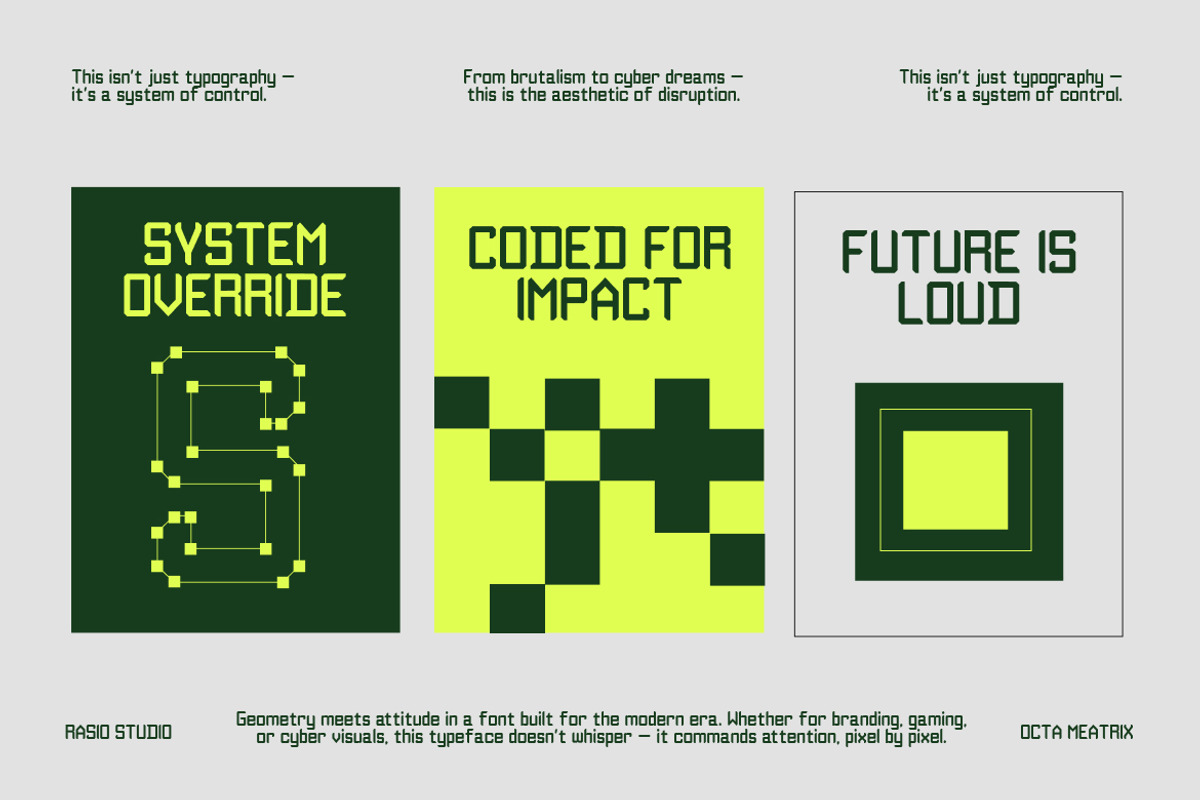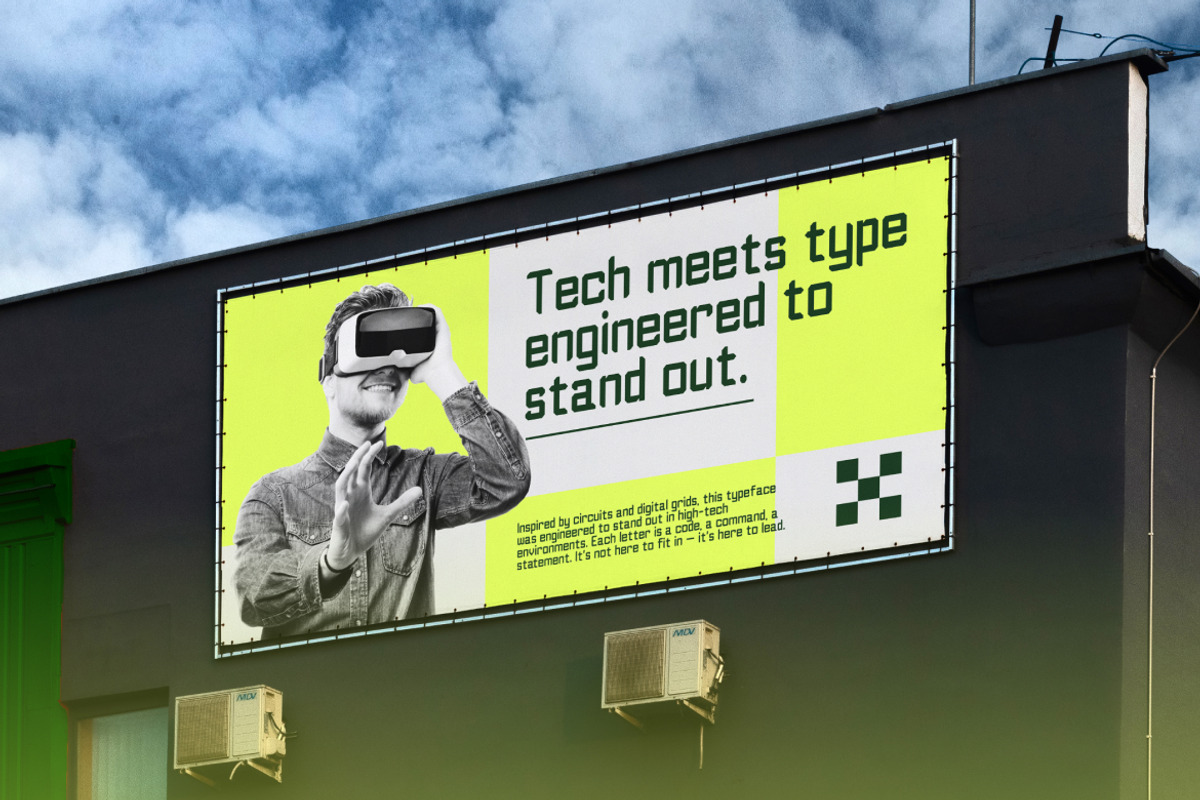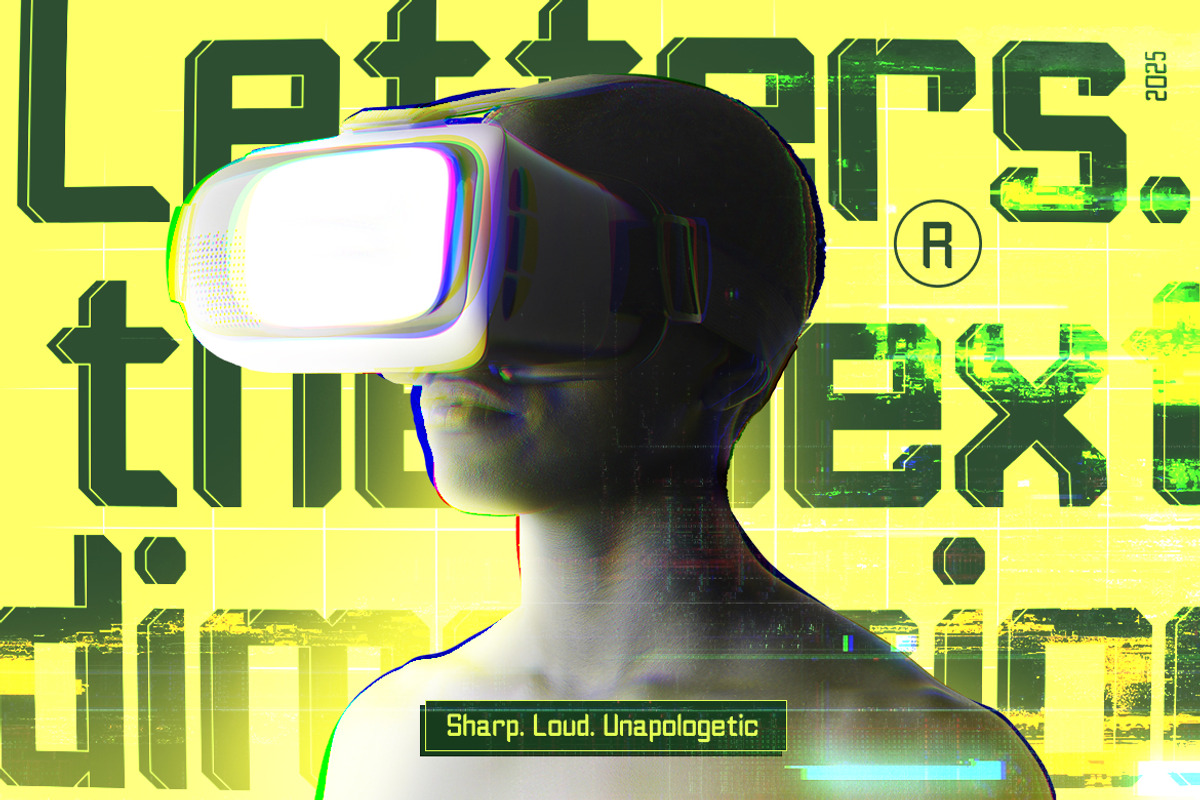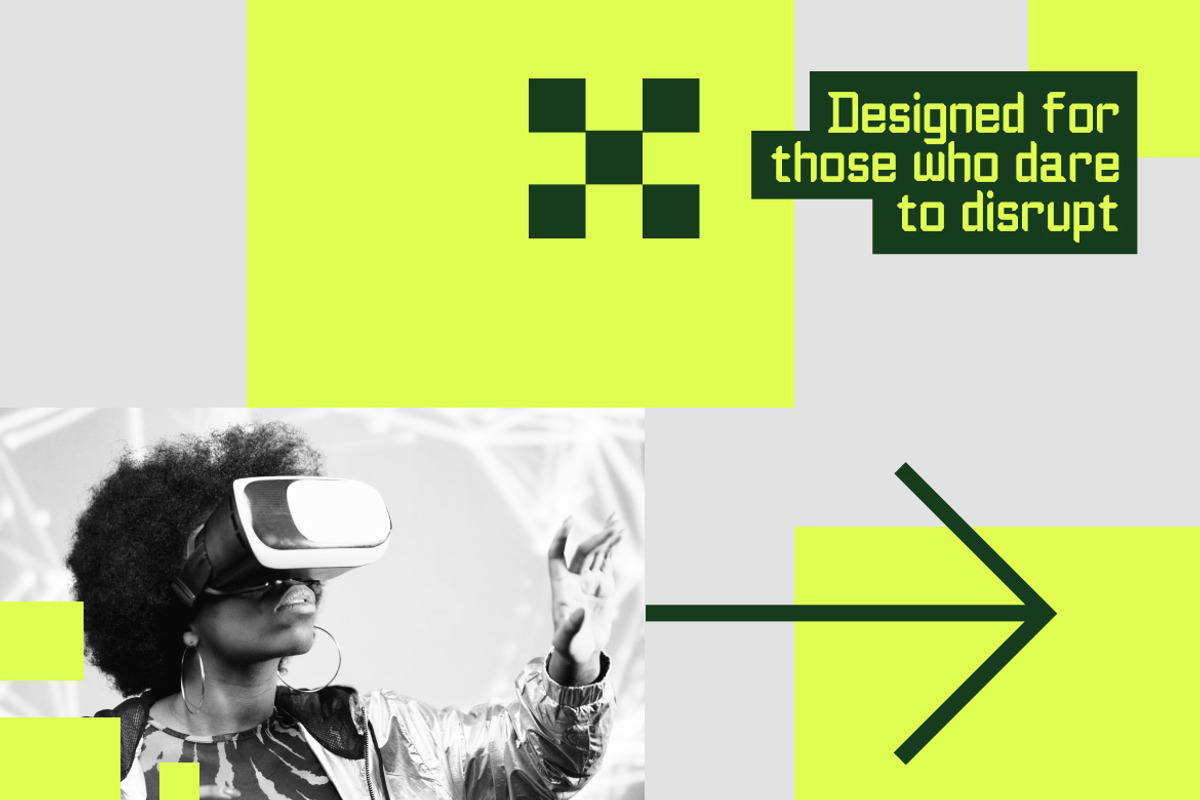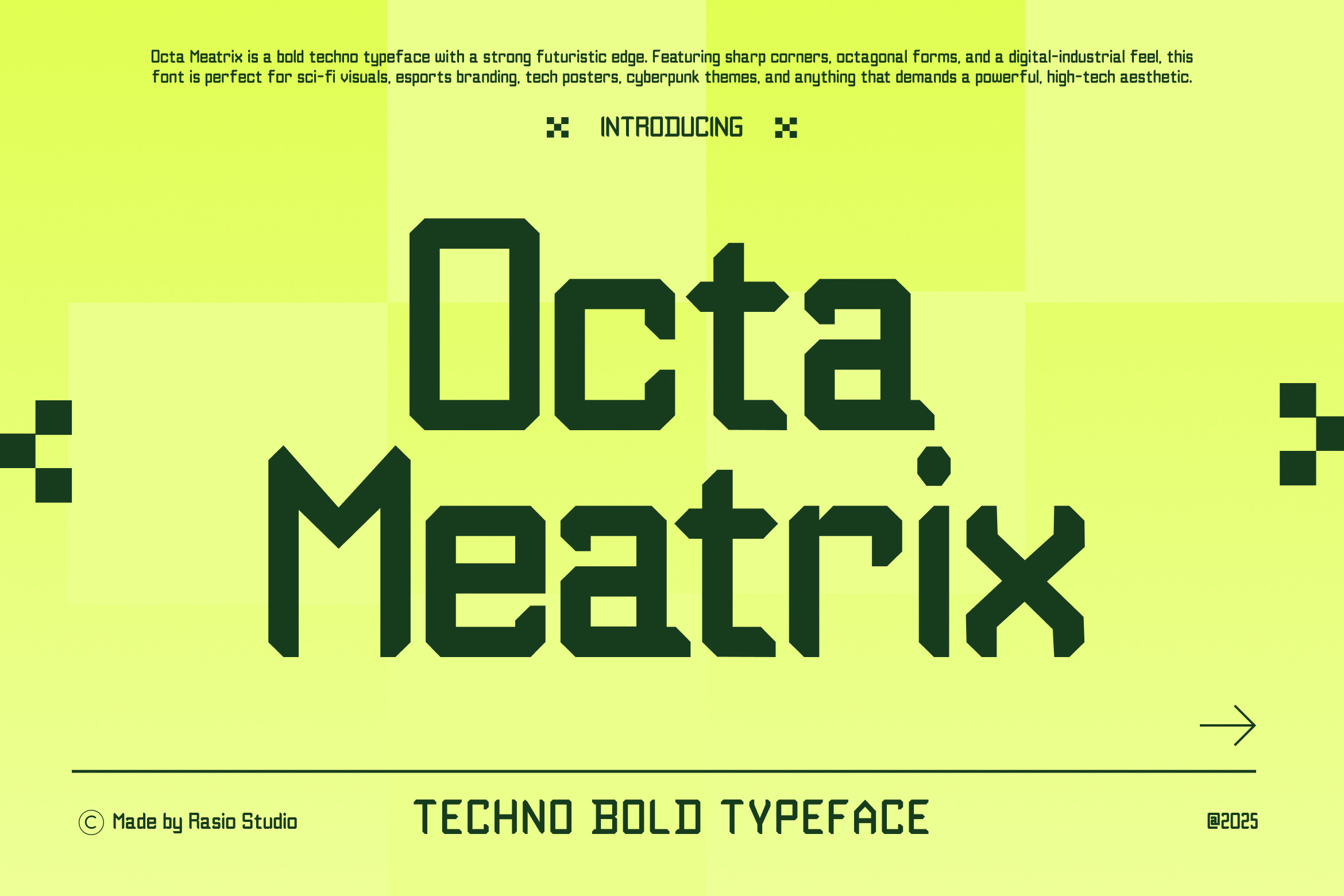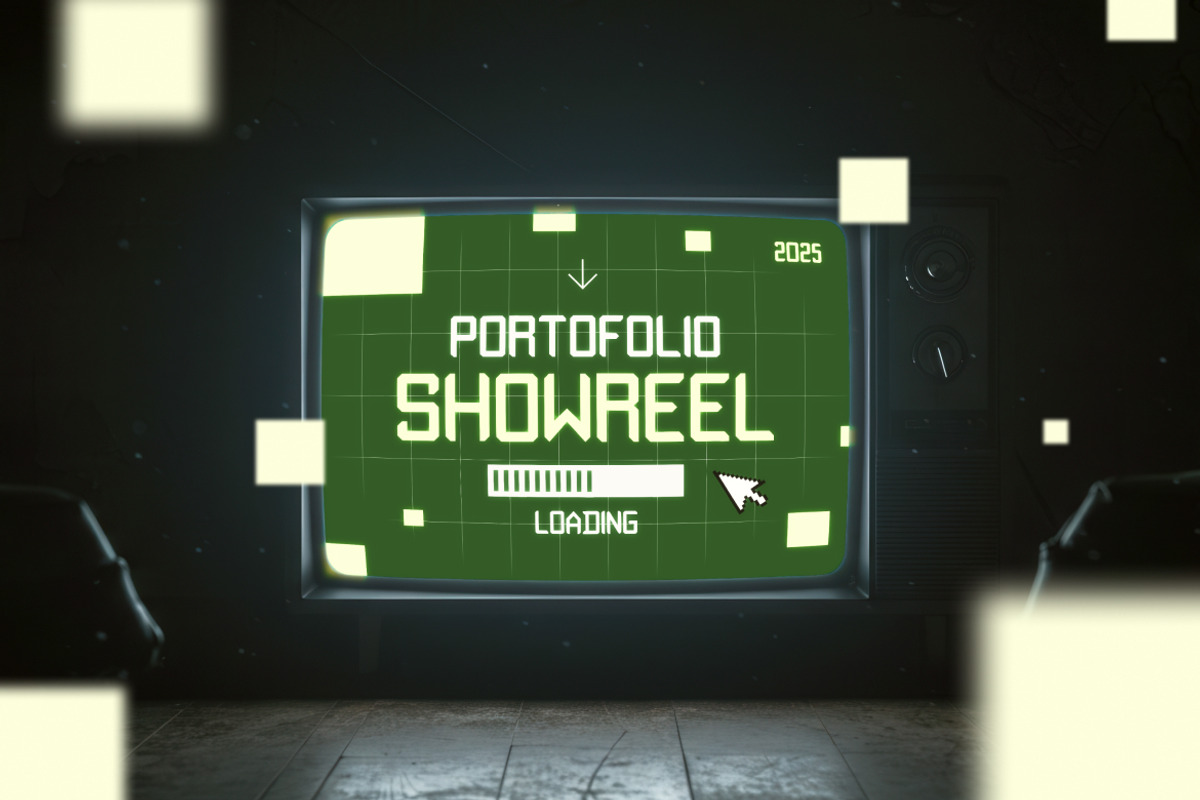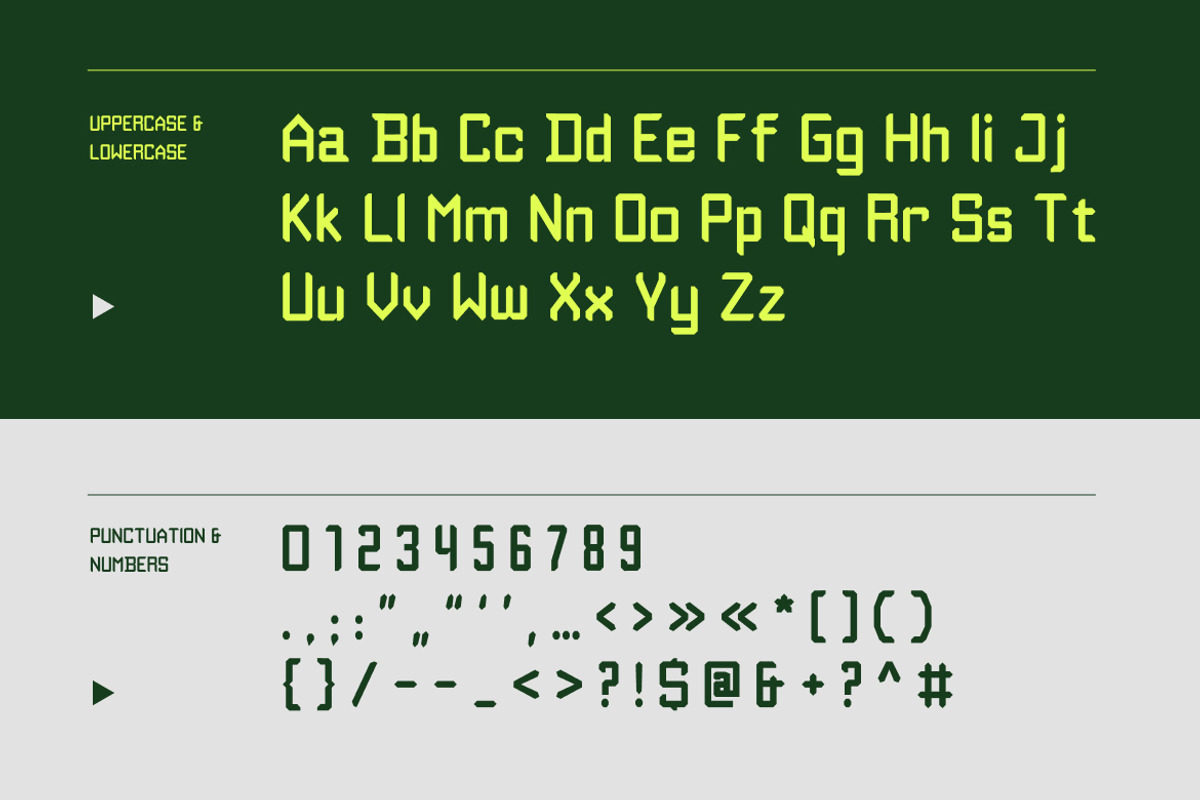
Octa Meatrix Techno Typeface Font
Octa Meatrix is a bold techno display font built with sharp geometric forms, octagonal structures, and a strong digital-industrial character. The letterforms feature angular cuts, squared terminals, and consistent stroke weight that emphasize a futuristic and high-tech aesthetic. Designed with uppercase and lowercase characters, numbers, and punctuation, this font delivers powerful visual impact while remaining structured and readable.
Octa Meatrix is designed for projects that require a strong, futuristic visual identity, making it suitable for technology branding, gaming and esports visuals, sci-fi and cyberpunk posters, digital interfaces, motion graphics, experimental layouts, and modern promotional designs where bold display typography is essential.
- Bold techno typeface with sharp geometric construction
- Octagonal and angular letterforms for a futuristic feel
- Strong squared corners and digital-inspired cuts
- Consistent stroke weight for solid visual impact
- High legibility in large sizes for display applications
- Sci-fi and futuristic brand identities with a strong technological tone
- Esports teams, gaming brands, and competitive event visuals
- Cyberpunk posters, digital artwork, and experimental graphic compositions
- UI headers, dashboards, and tech-themed interface designs
- Technology startups, AI products, and innovation-focused branding
Octa Meatrix, where modern precision meets futuristic expression